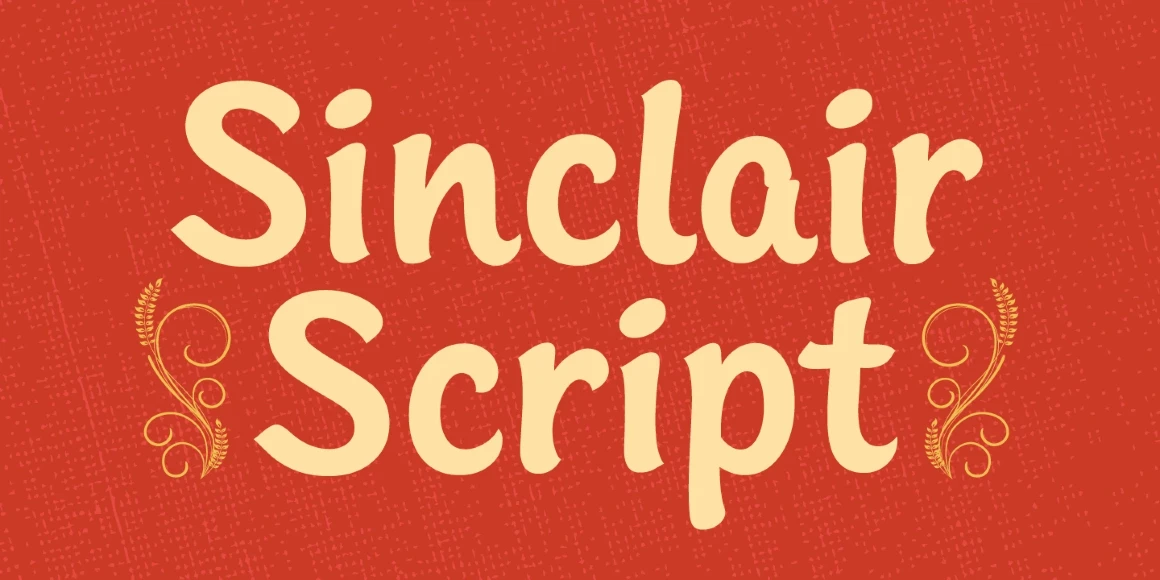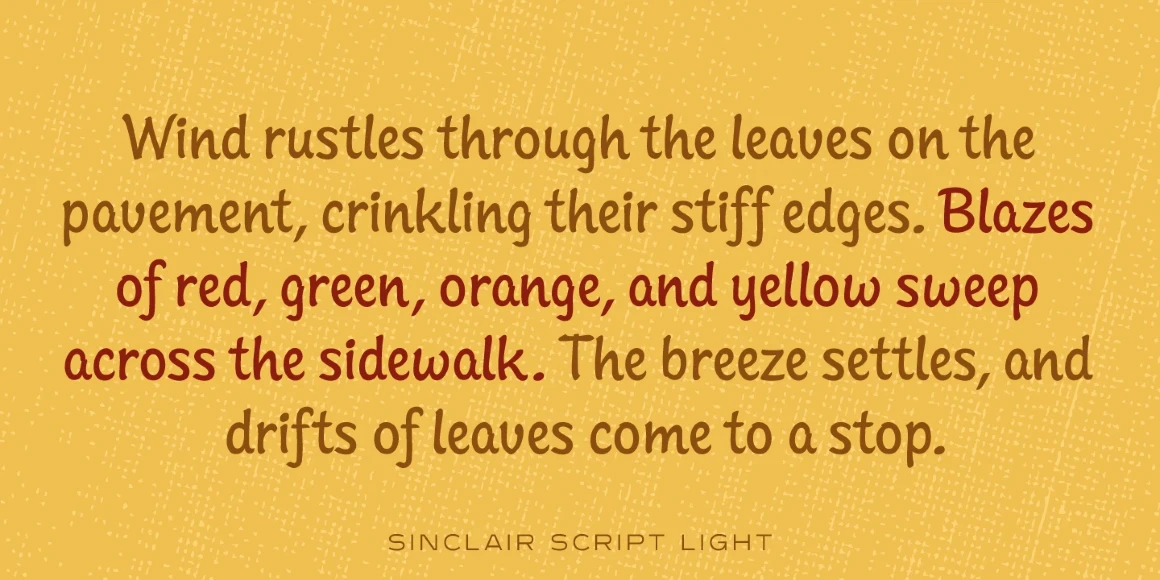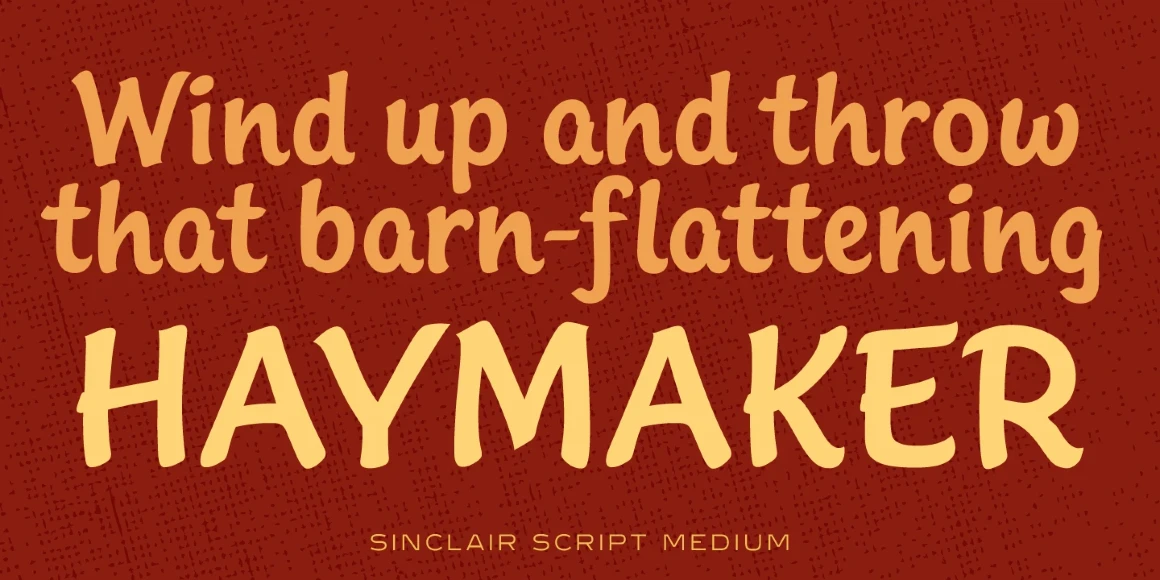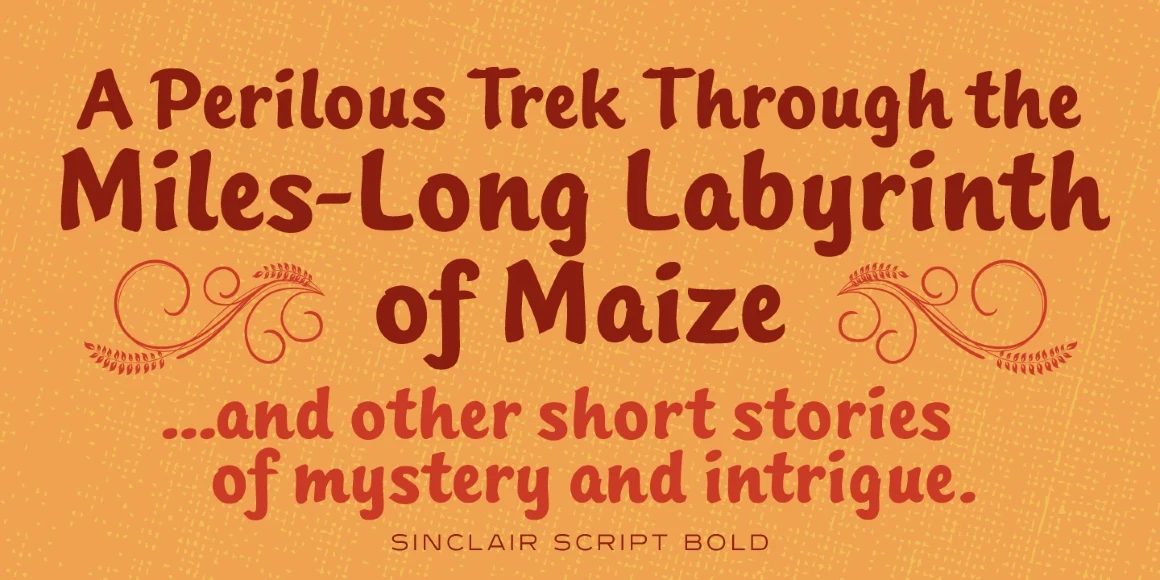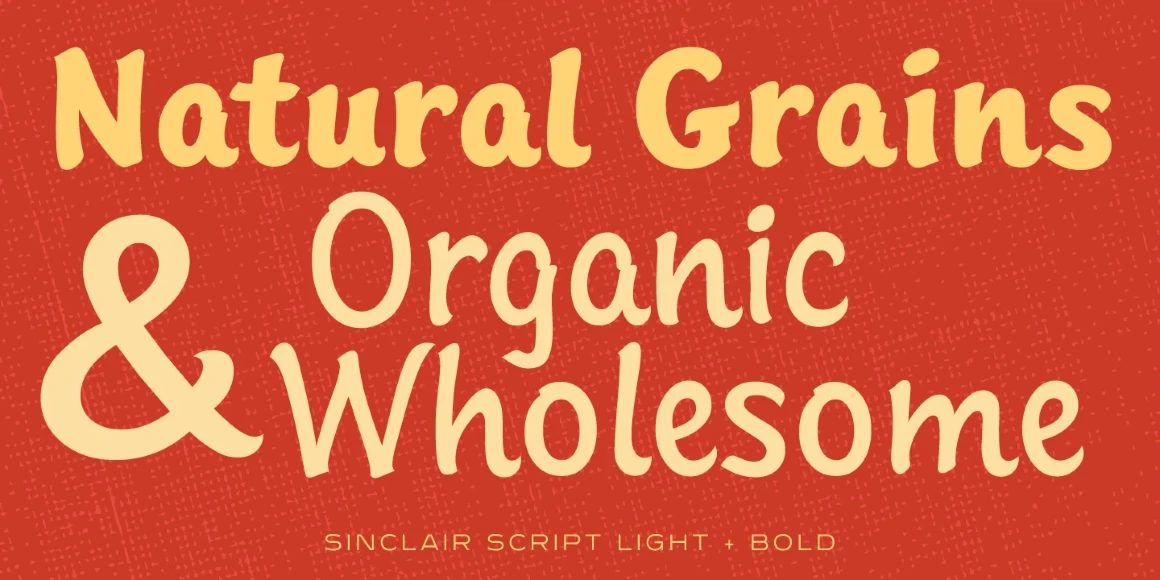
Sinclair Script
Sinclair Script Light
Sinclair Script Medium
Sinclair Script Bold
Knutsford Script’ was a distinctive typeface designed for QBF in Manchester, England. Pat Hickson (P&P Hickson) redesigned the font specifically for the Red Rooster Collection, while Steve Jackaman (ITF) developed the digital versions of the family under its new name, ‘Sinclair Script.' This typeface, with its friendly, casual, and calligraphic style, is not only legible but also well-suited for packaging projects. Its versatility is a key feature, making it a choice that can enhance any design, regardless of size or context.